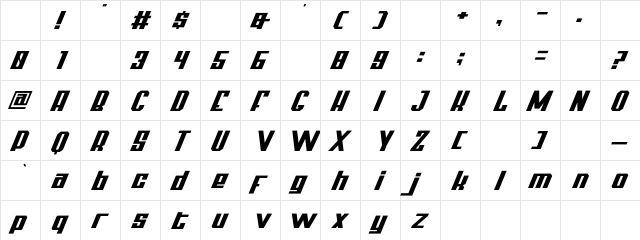
Thunderbold Demo is a composed and adaptable typeface that performs quietly and consistently across a wide range of design contexts. Its bold stroke weight gives it real presence on the page.